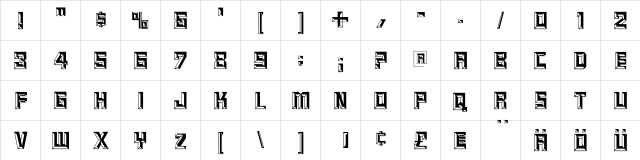
ReliefCaps Medium
Design Context for ReliefCaps Typeface
ReliefCaps is a composed and adaptable typeface that performs quietly and consistently across a wide range of design contexts.